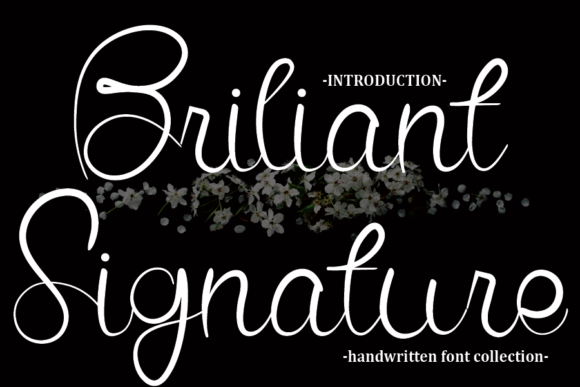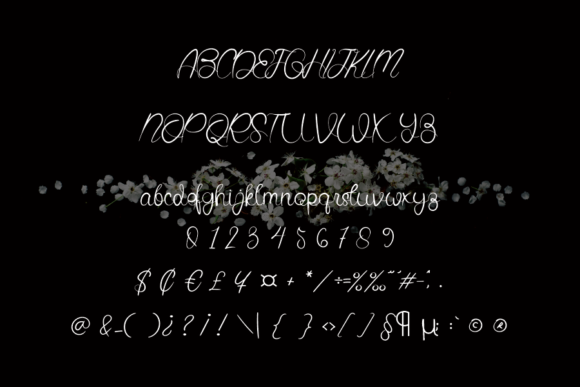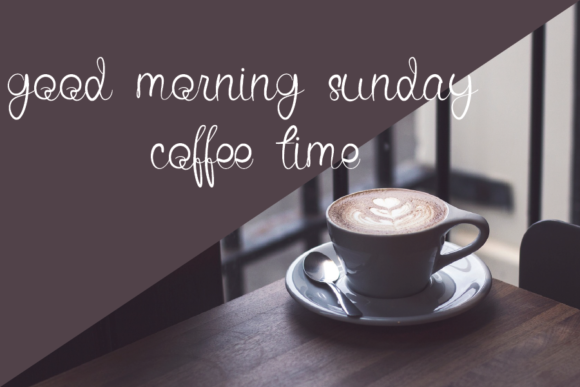
Briliant Signature is an elegant script font with a contemporary atmosphere and impeccable form, inspired by timeless classic calligraphy. Not too thin and not too thick, balanced and varied, this font was designed to enhance the beauty of your projects.